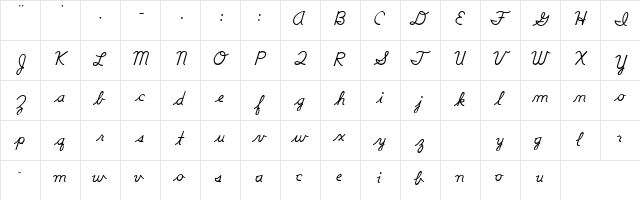
DNealianRegular Regular
Design Context for DNealianRegular Typeface
DNealianRegular offers clean, dependable letterforms without strong stylistic allegiance, making it a practical choice for designers who need flexibility.